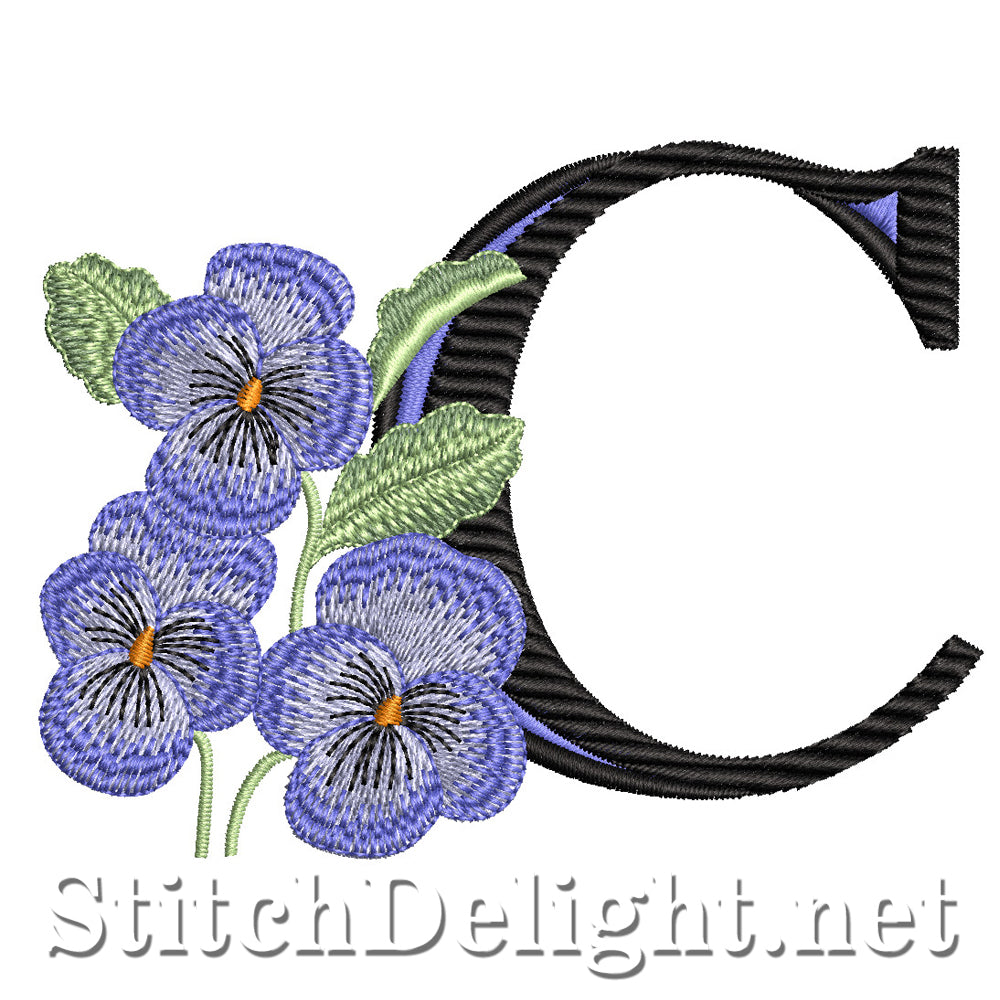
SDS1516 Violet Font C
This stunning Purple Pansy single letter is a MUST HAVE! This font has an average height of 2.7" so it works with even the tiniest 4x4 hoop.